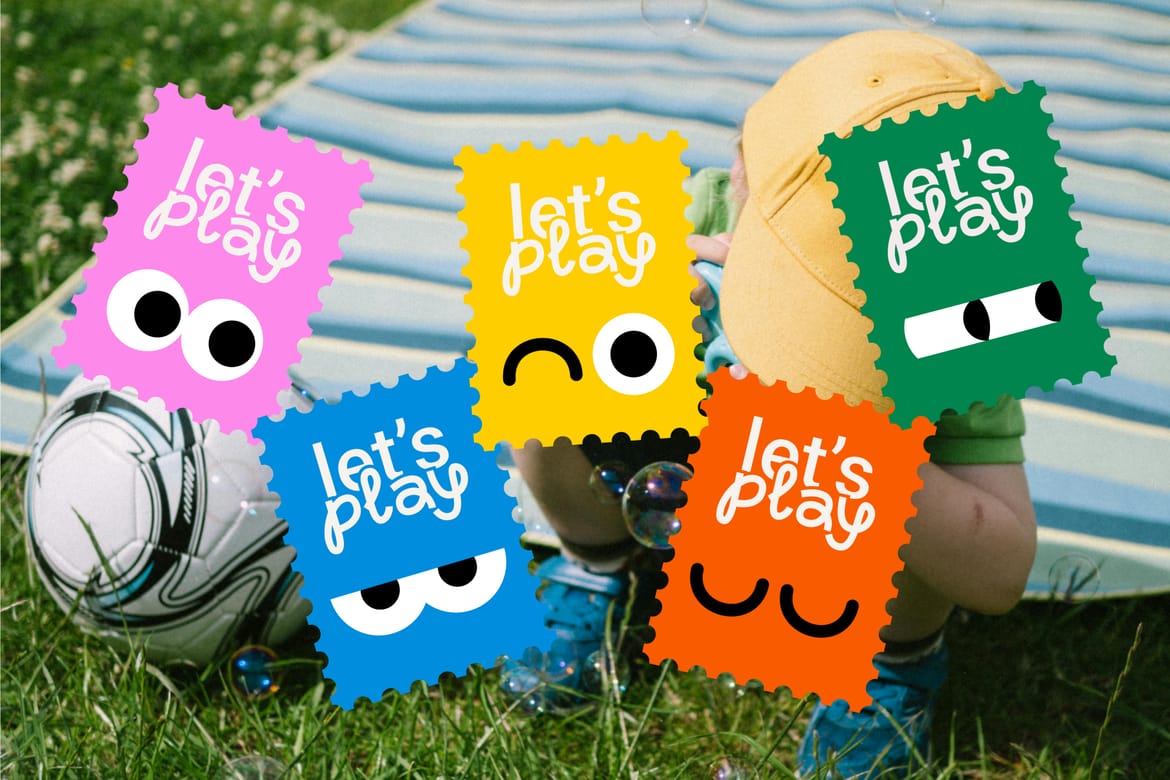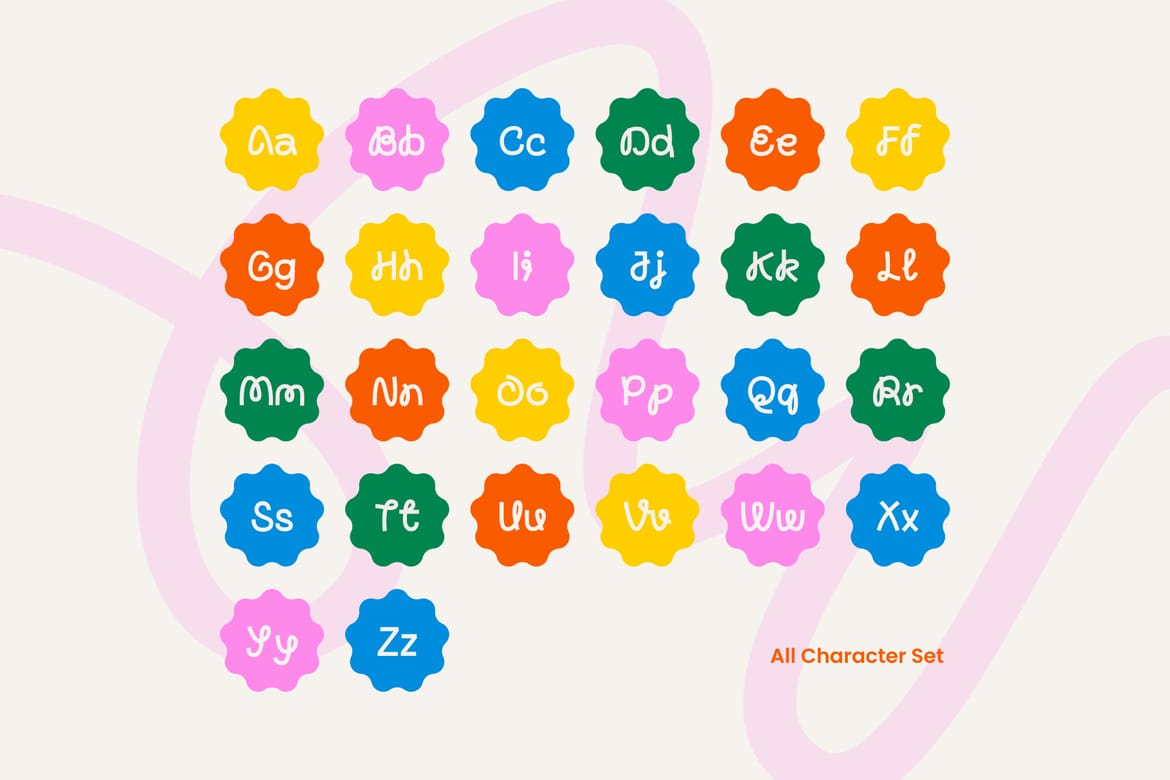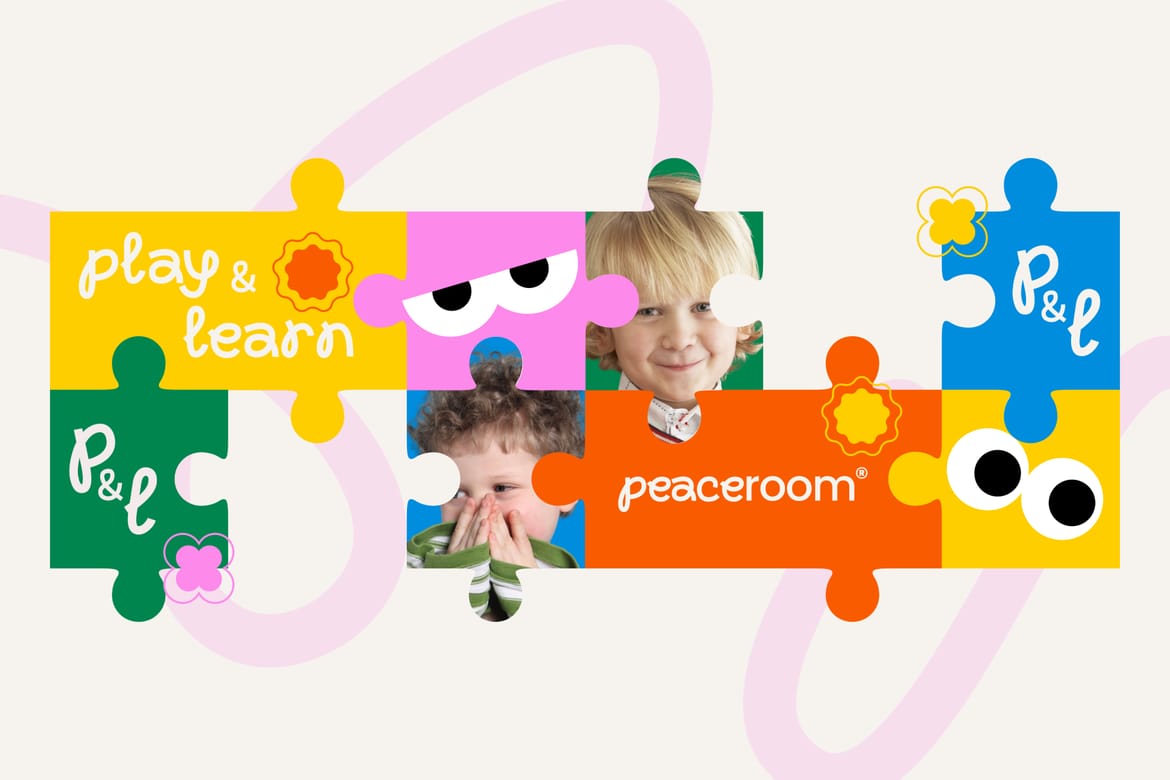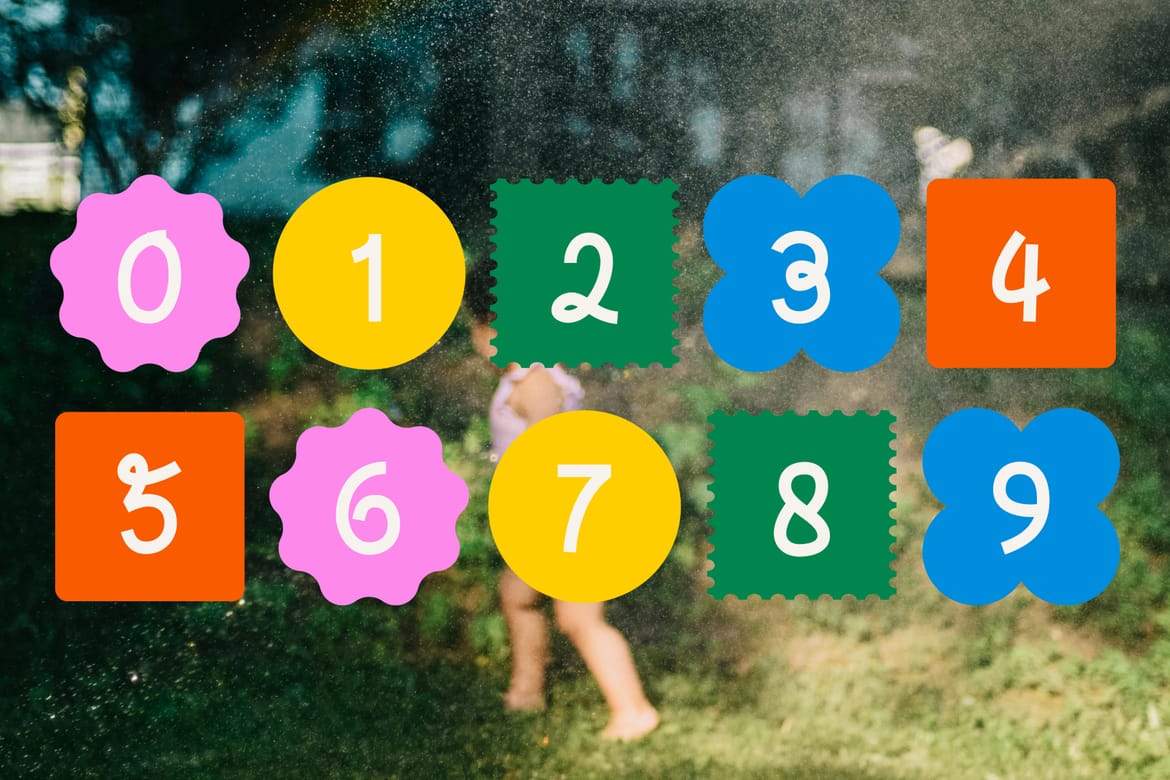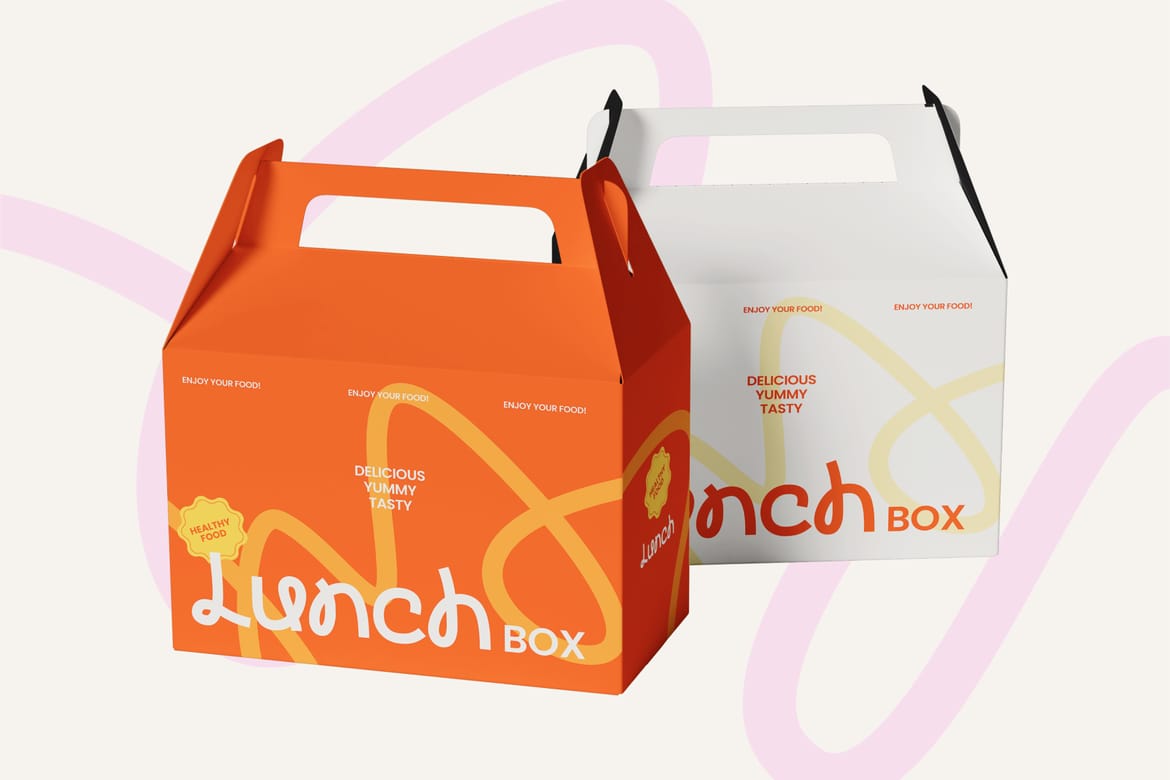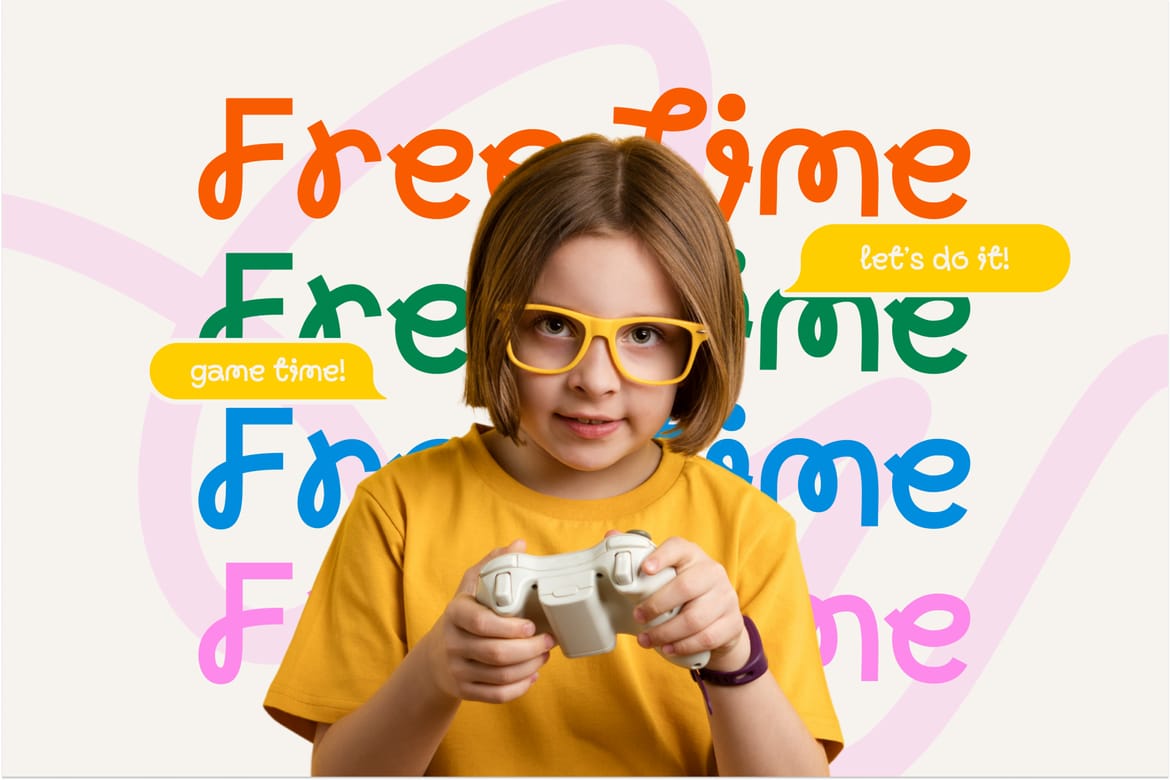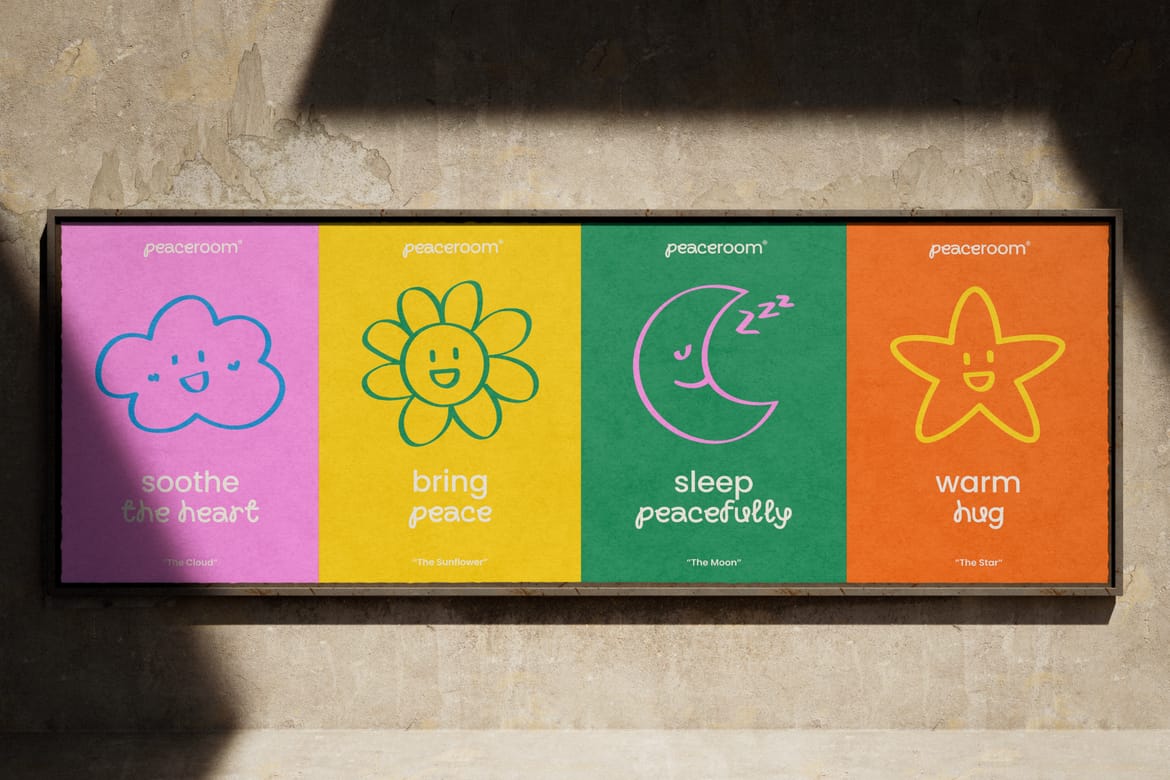
Buttervale is a colorful, curly display font designed for playful, joyful branding. Perfect for kids projects, logos, packaging, posters, and headlines. With quirky shapes and vibrant personality, it brings charm and energy to every design. Ideal for creative brands, children’s books, fun marketing, and eye-catching social media visuals.
Cheerful playful display with a colorful retro vibe
Perfect for children brands, candy packaging, and creative event designs
Fun handwritten curves with lively colors that create an energetic personality